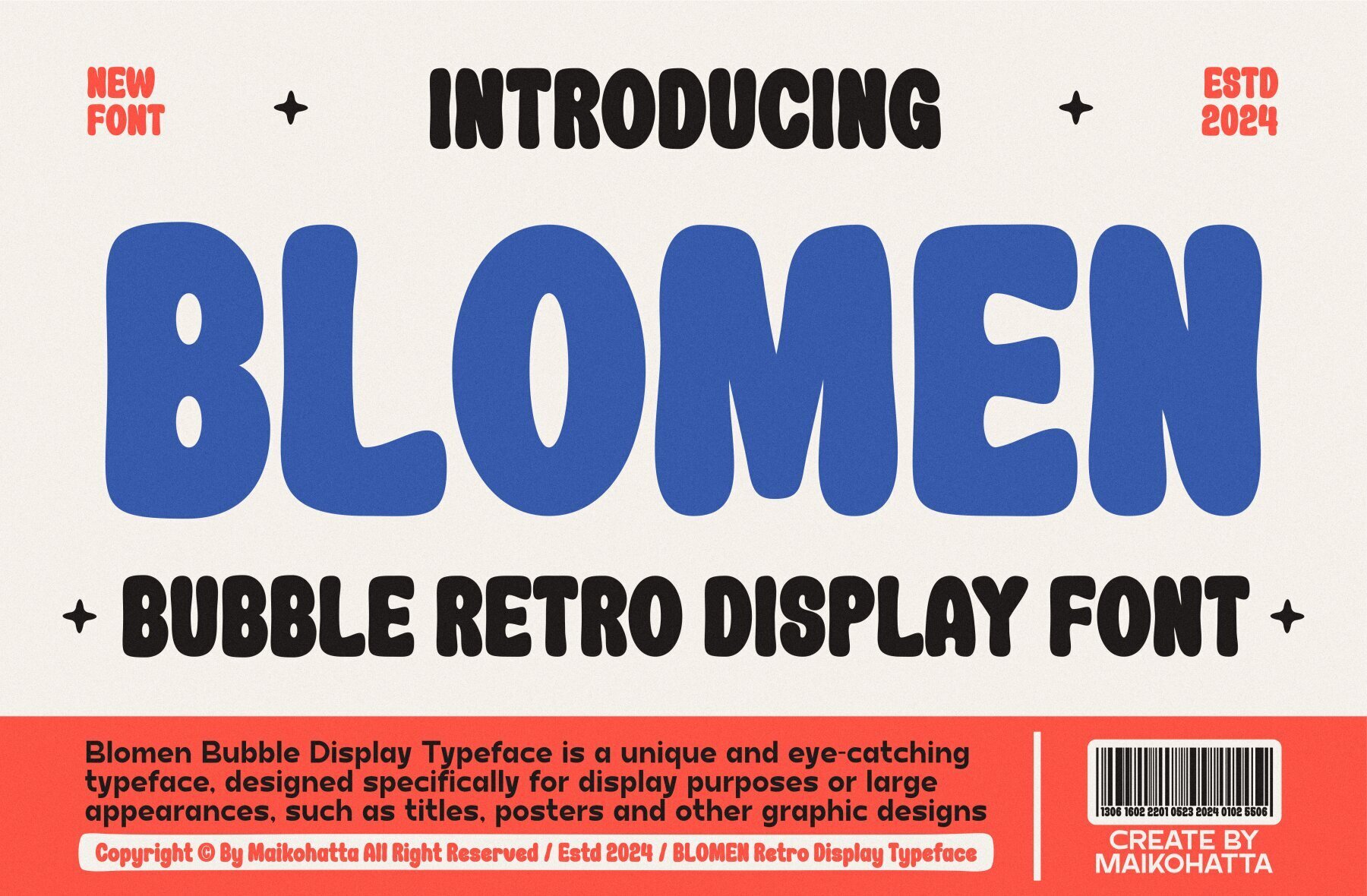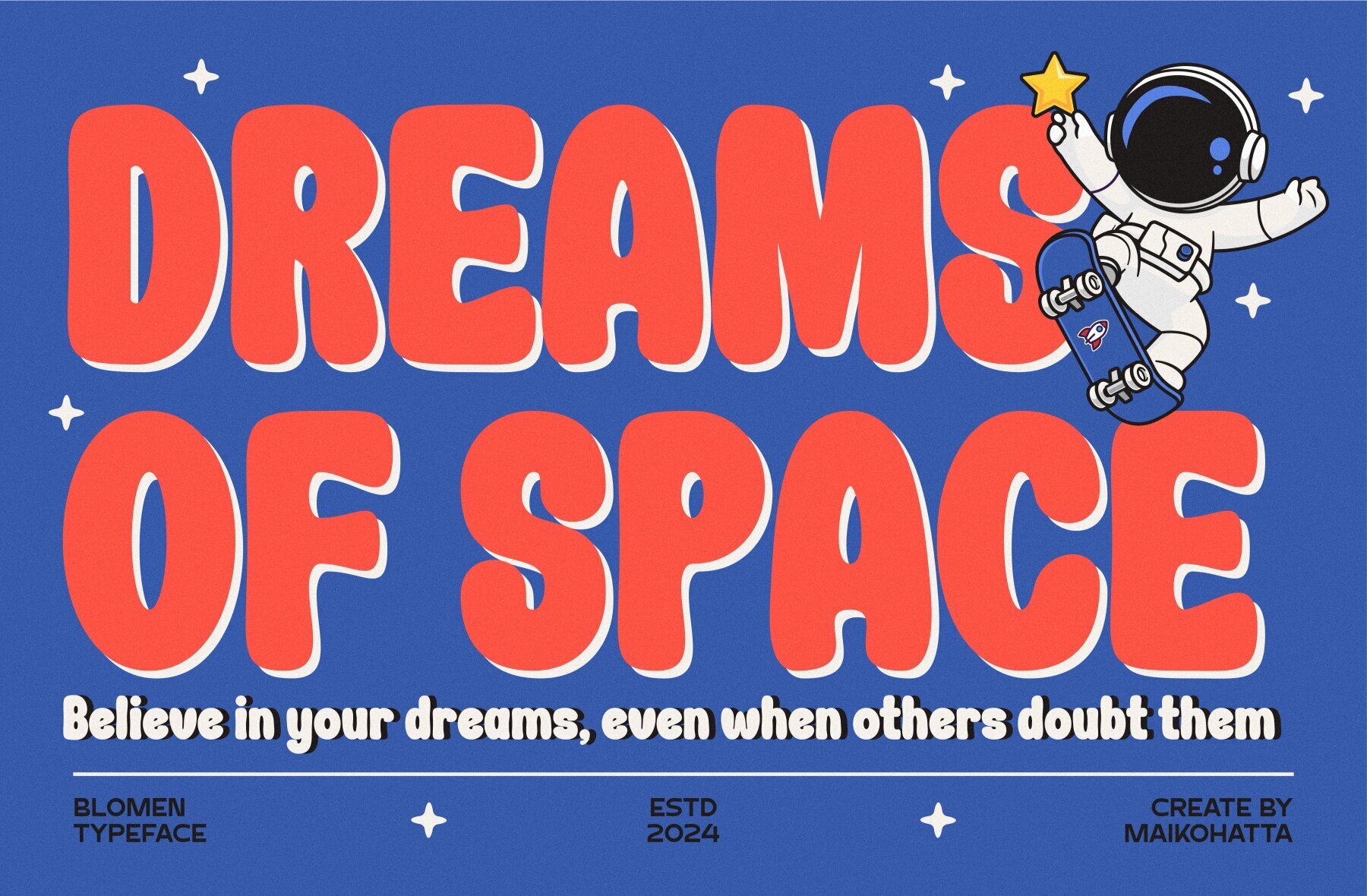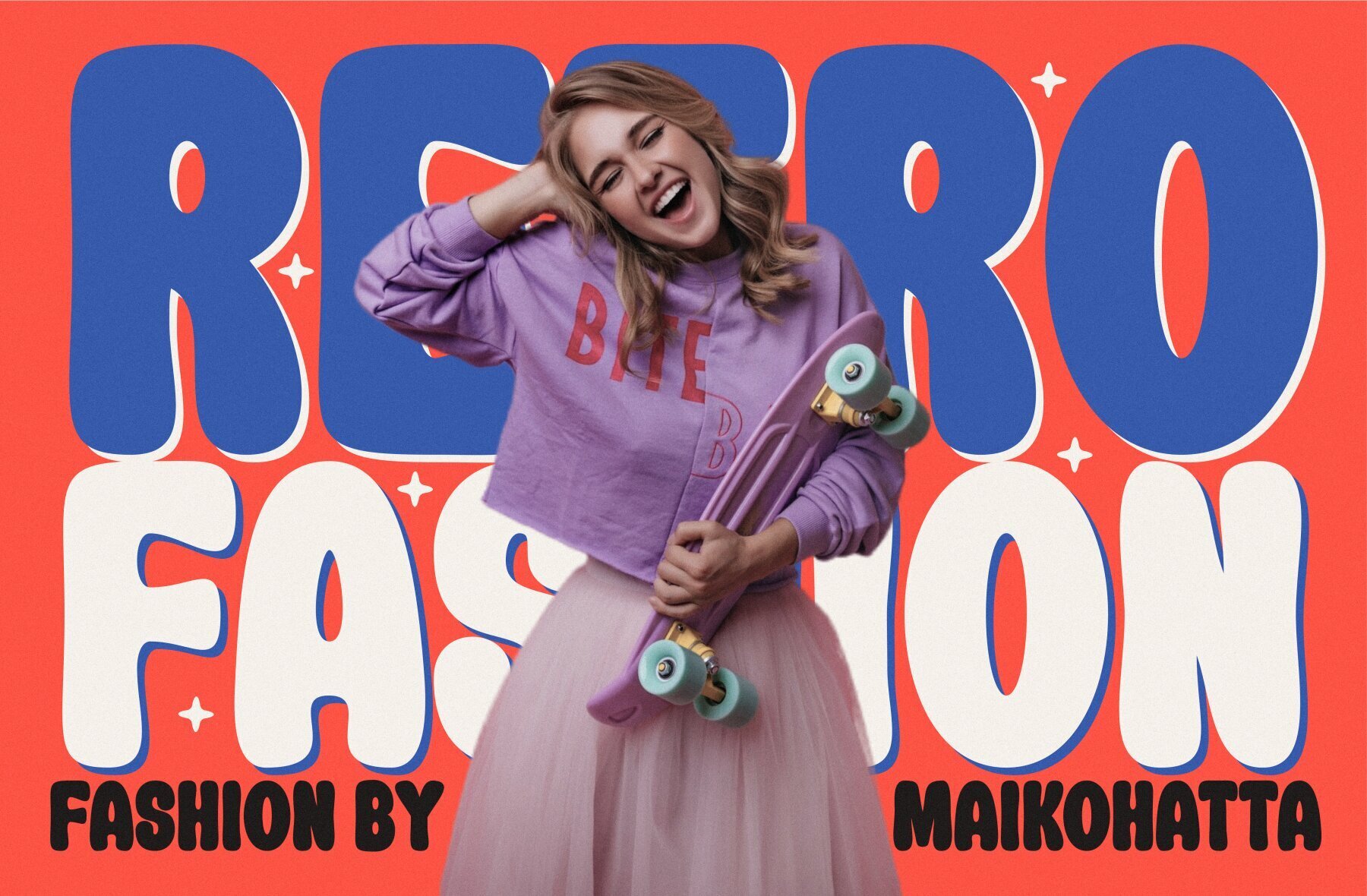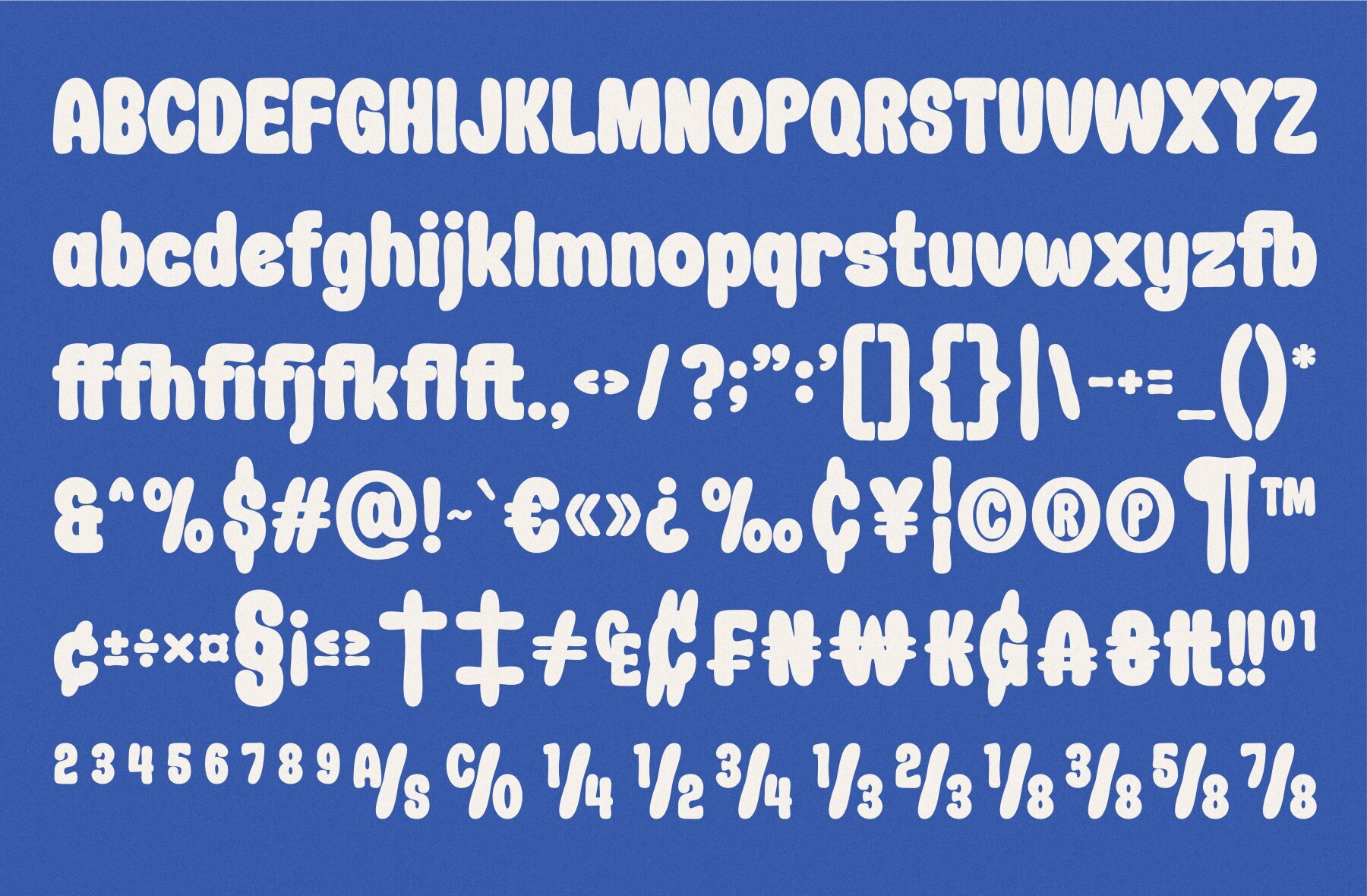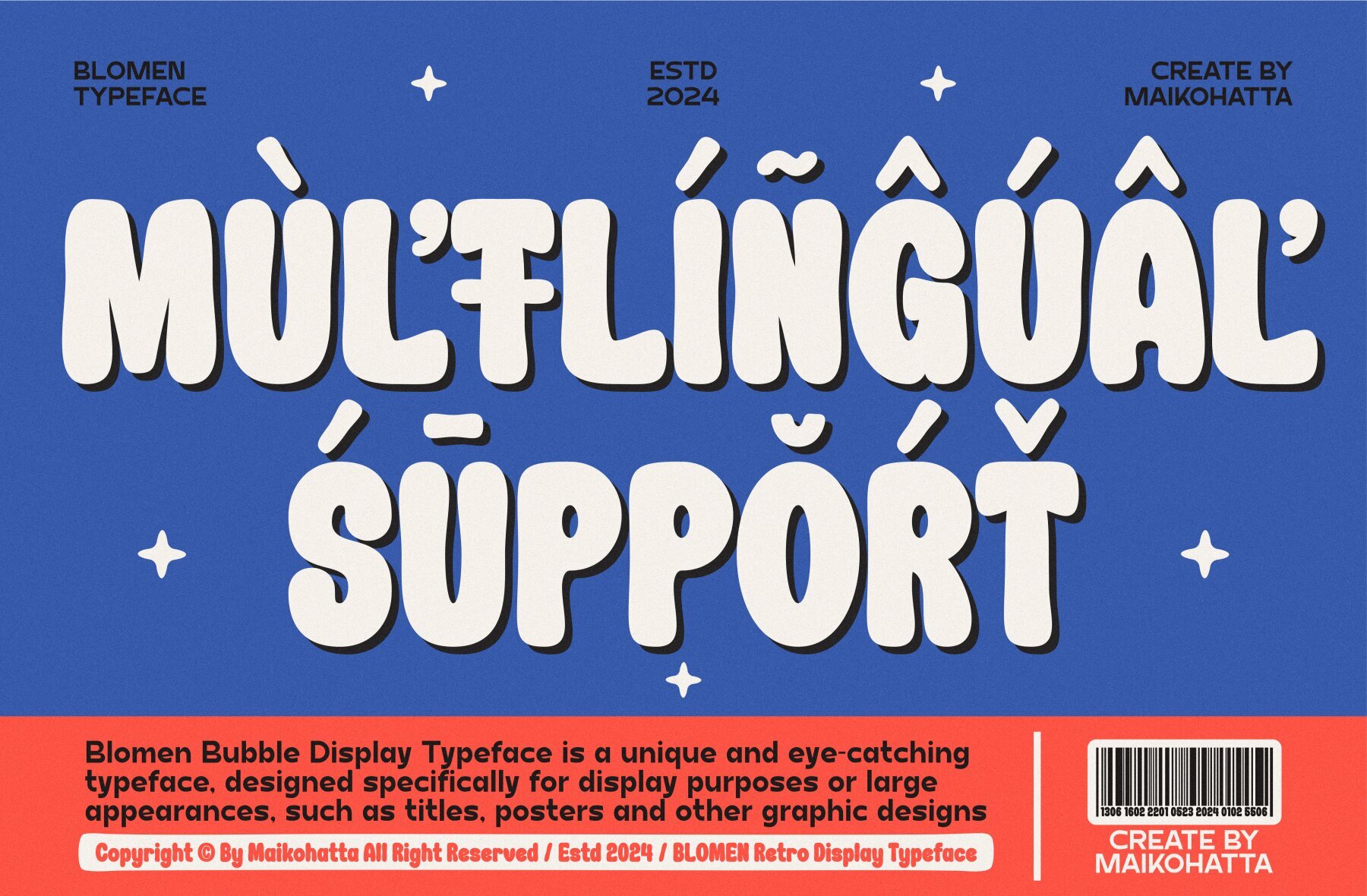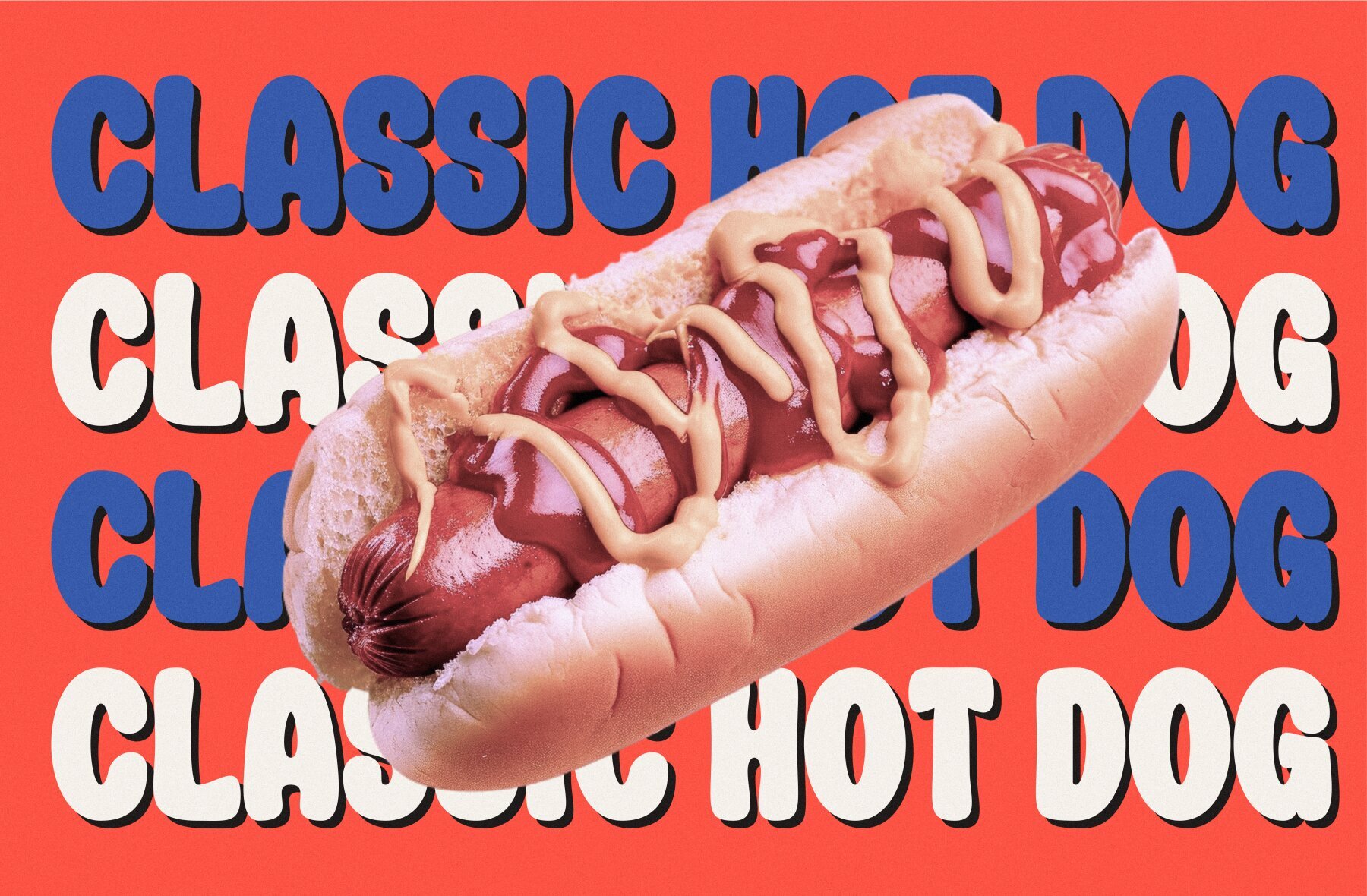
Blomen Font
Blomen Regular
This bold, geometric sans-serif font features thick, strong lines that create a modern and clean look. Ideal for headline, title, and display use, this font stands out in branding and advertising projects. Its legibility and minimalist design make it perfect for posters, urban designs, and digital applications, offering versatility for a wide range of design projects.